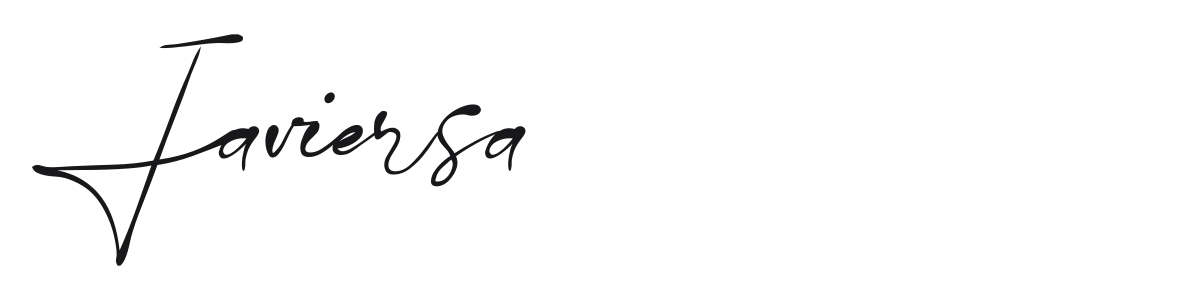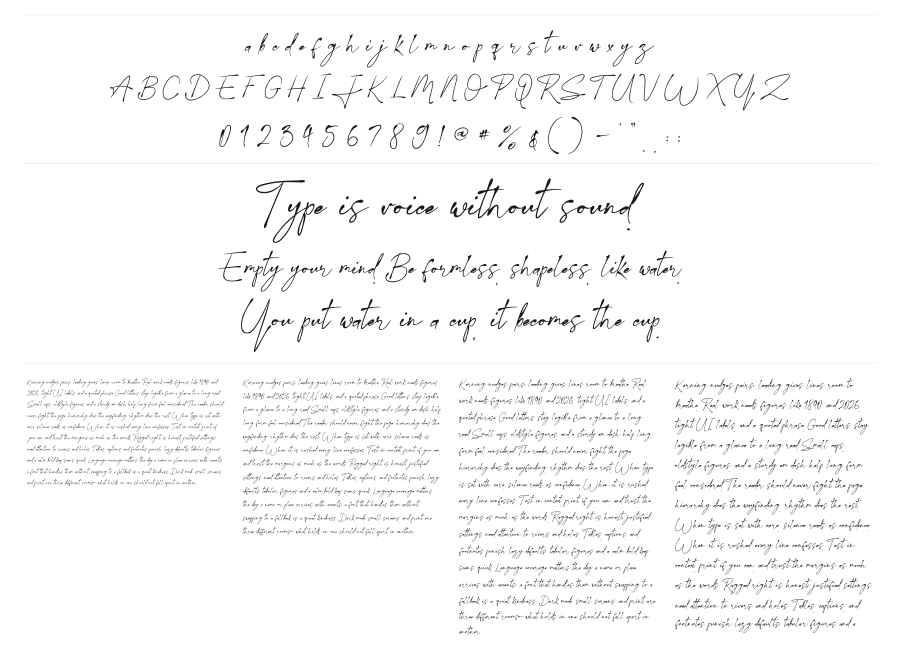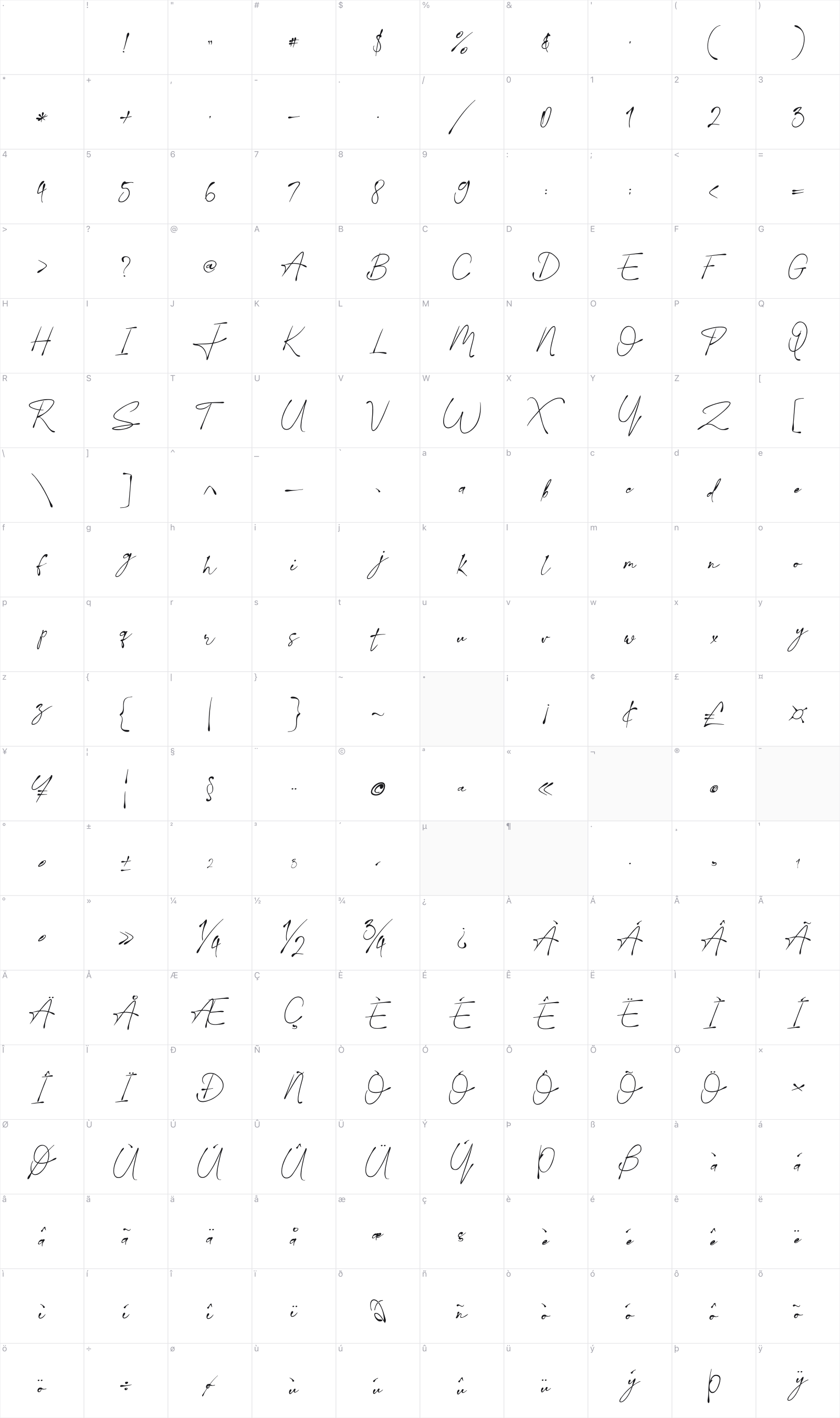
Javiersa
Javiersa is a flowing casual script that reads like a confident pen signature dashed off in a single movement. Thin connecting strokes and gently drifting baseline give it an authentic handwritten quality without feeling rough or unpolished. It works well at large sizes for logos, branding, and editorial headlines where a personal, approachable tone is the goal.